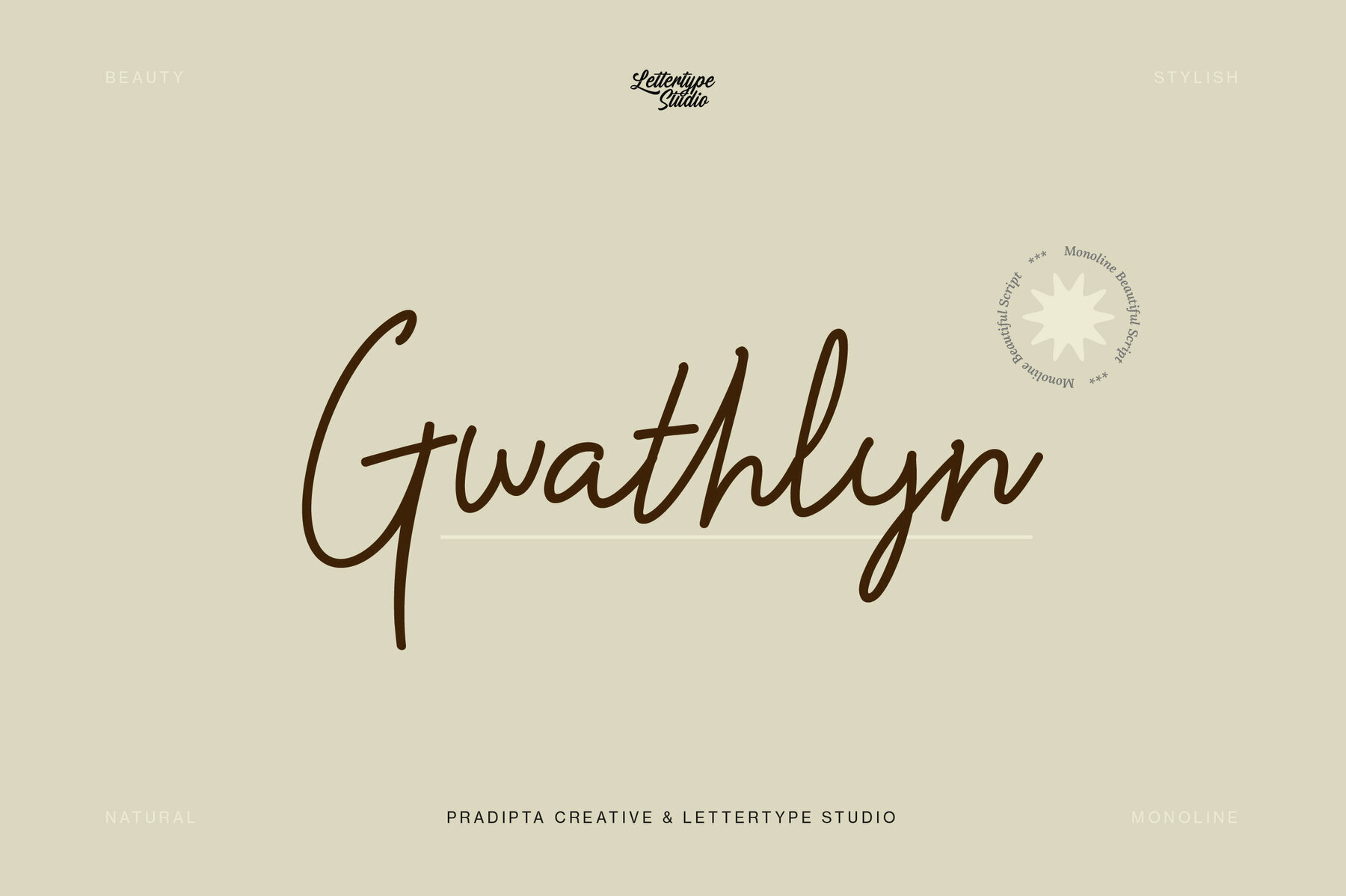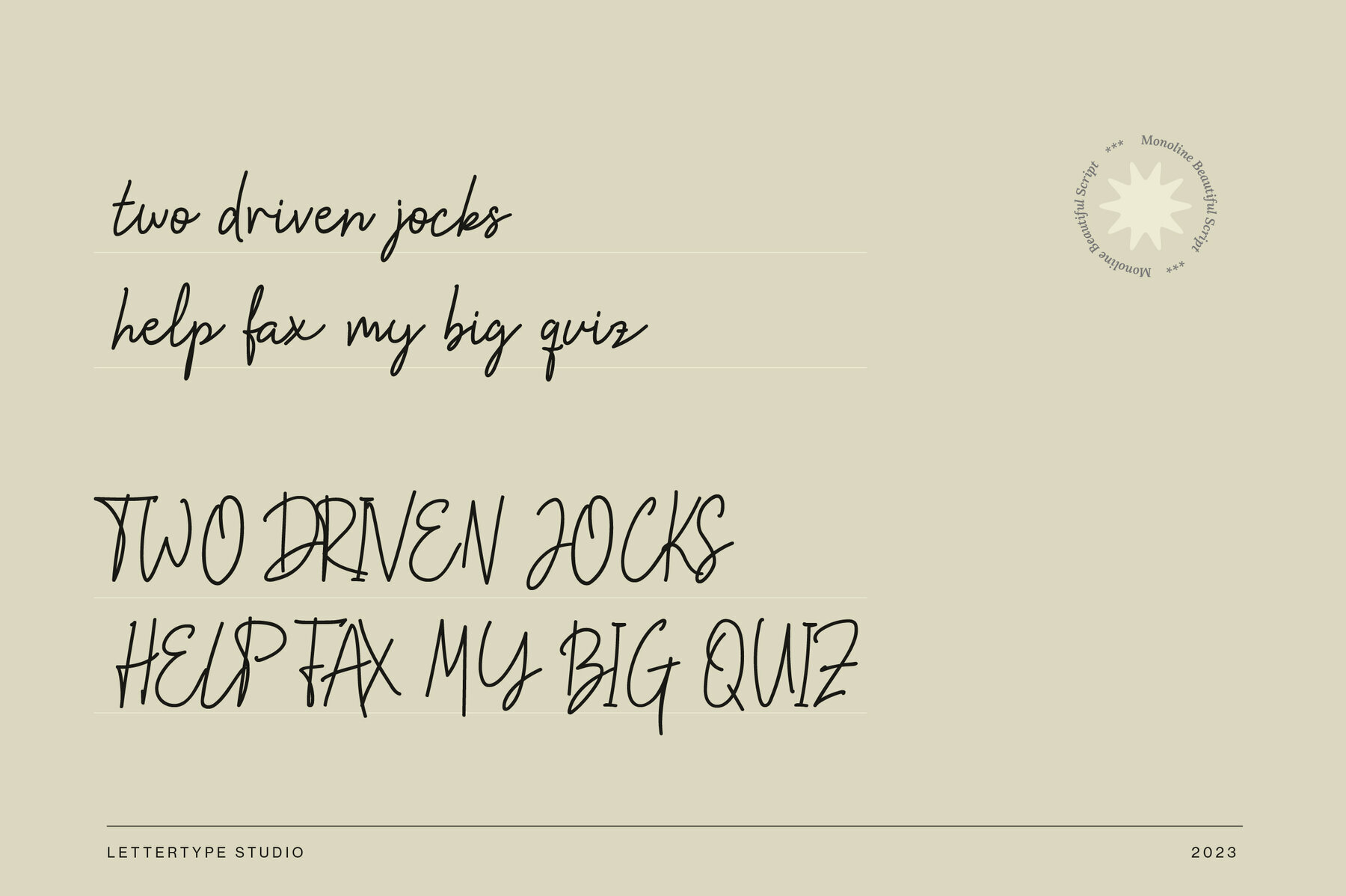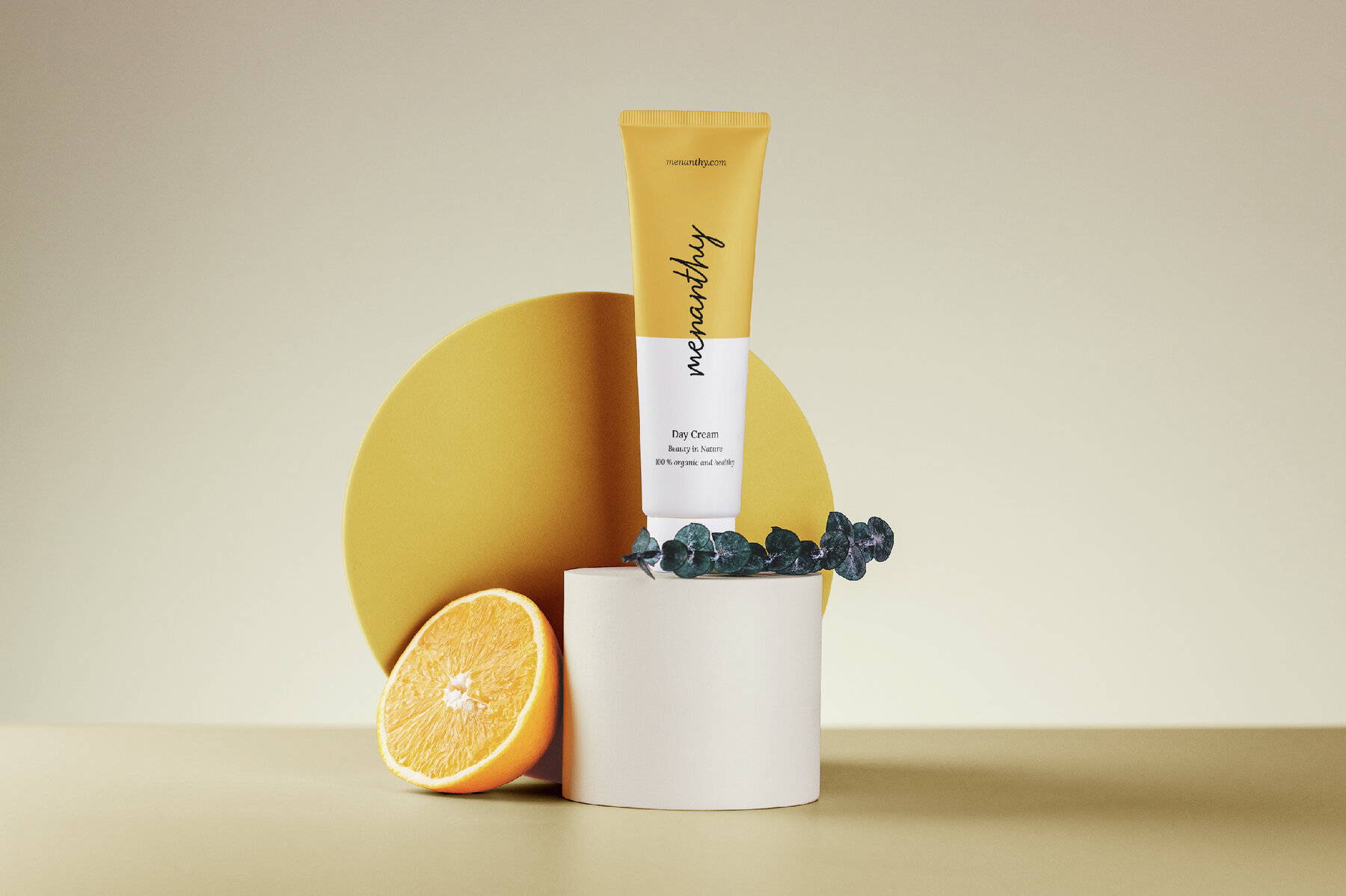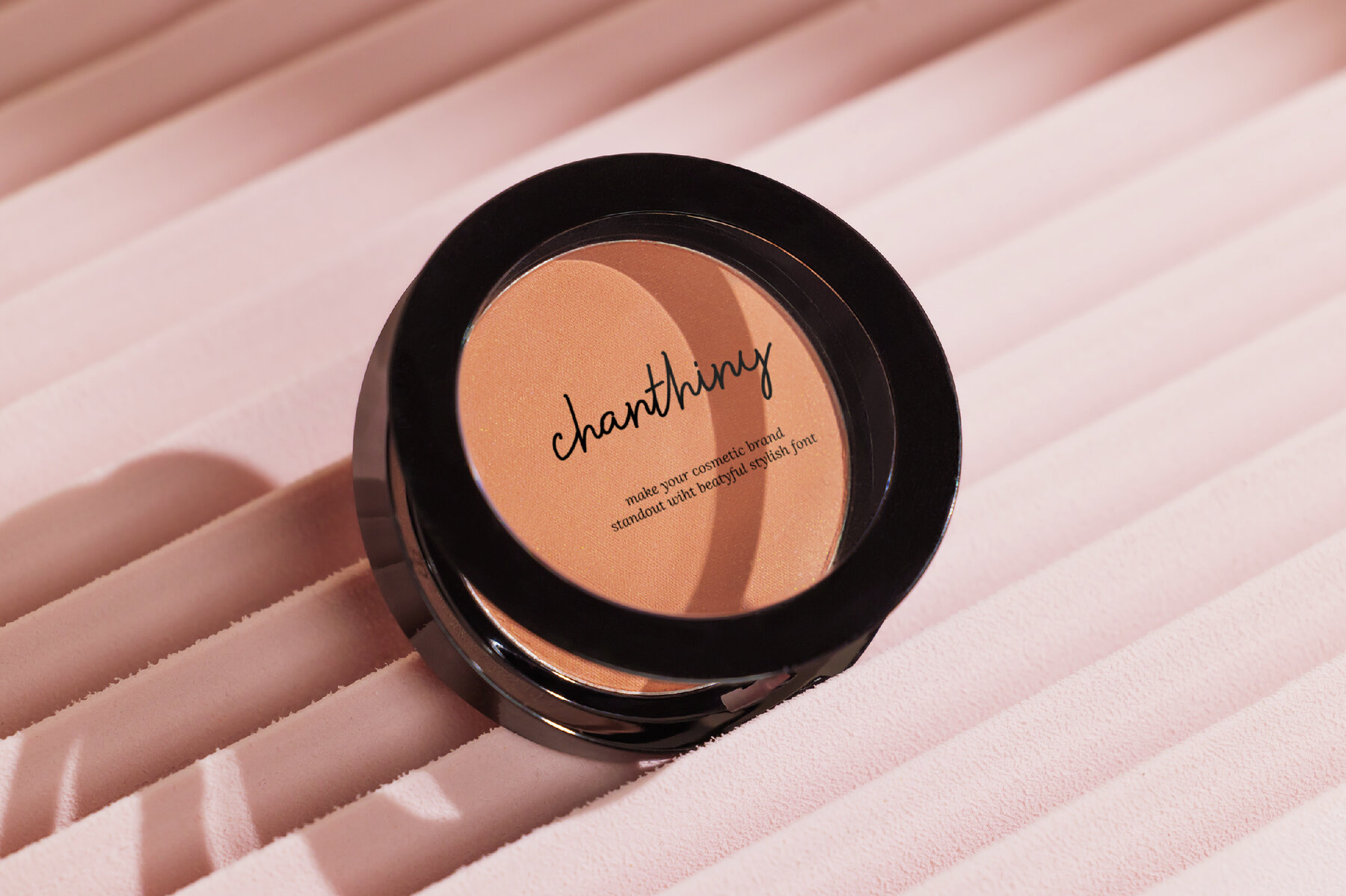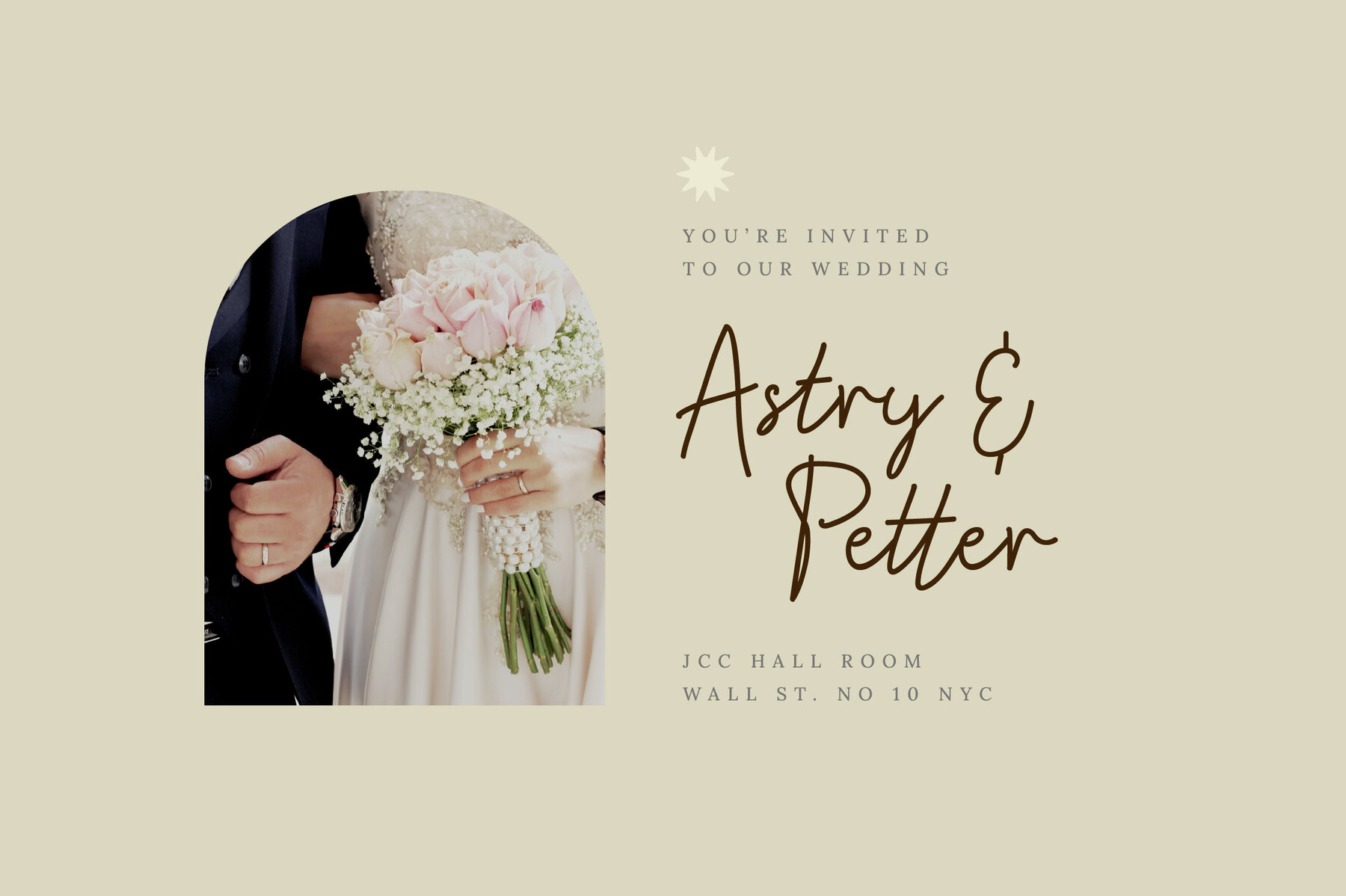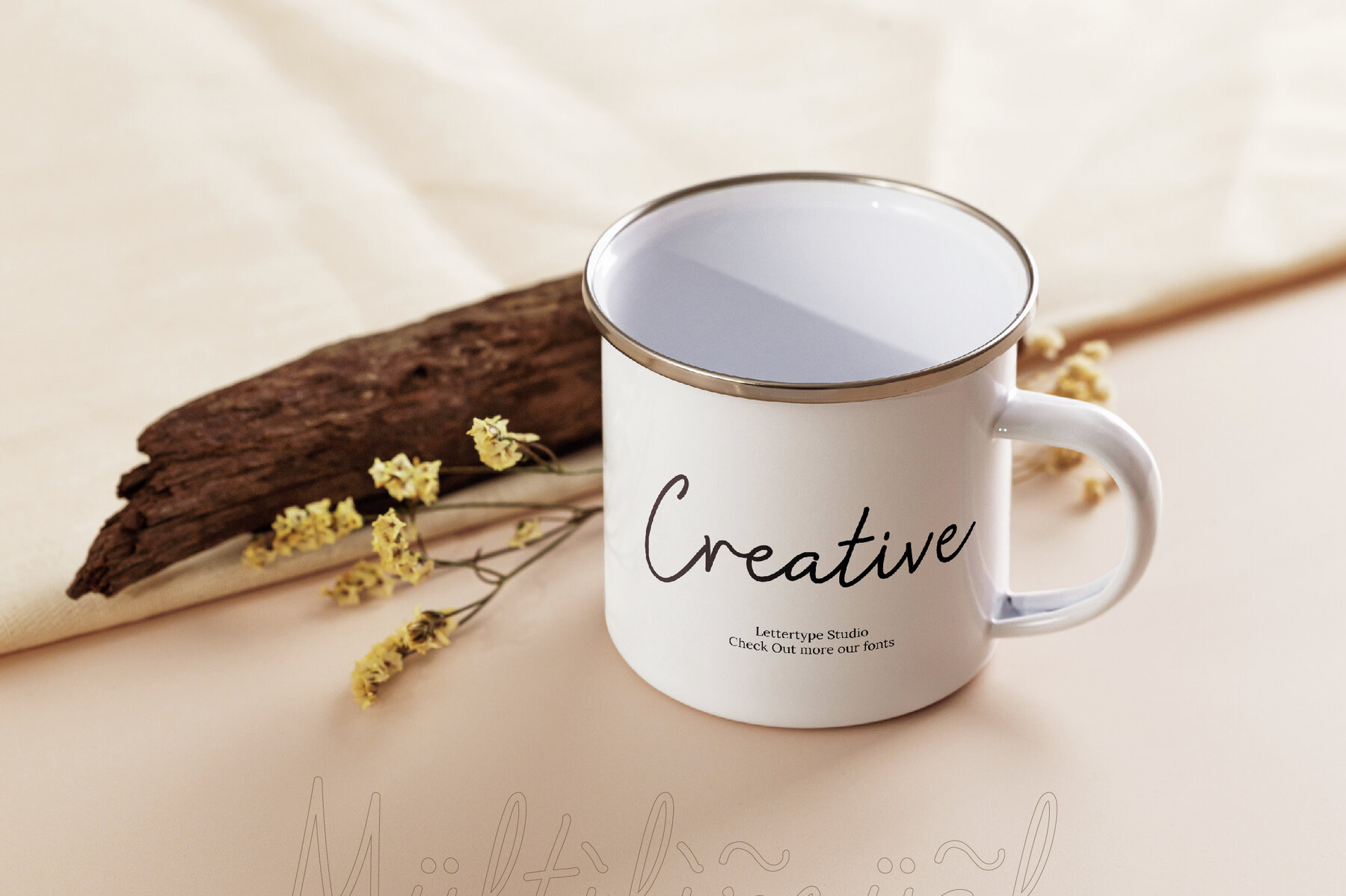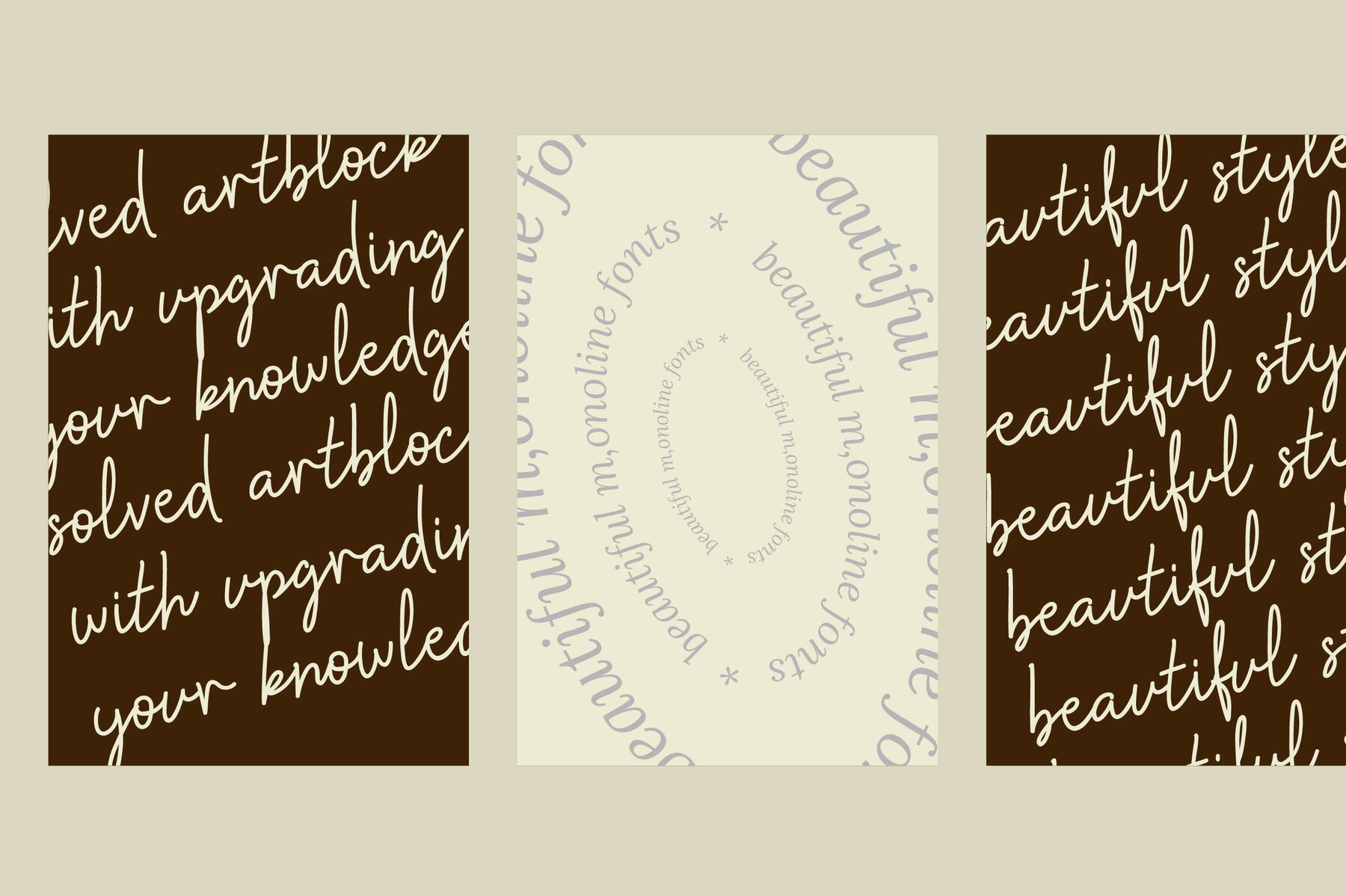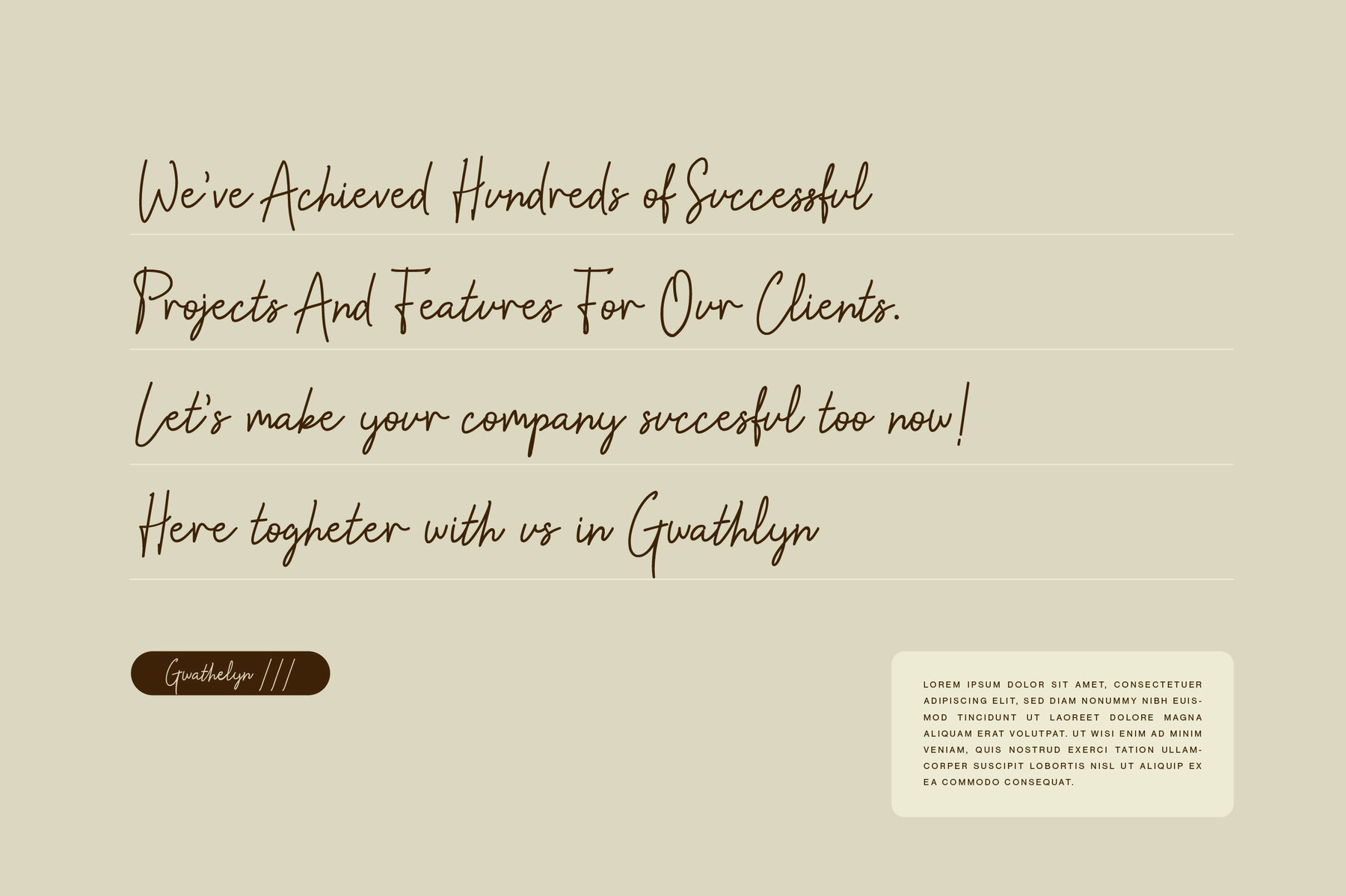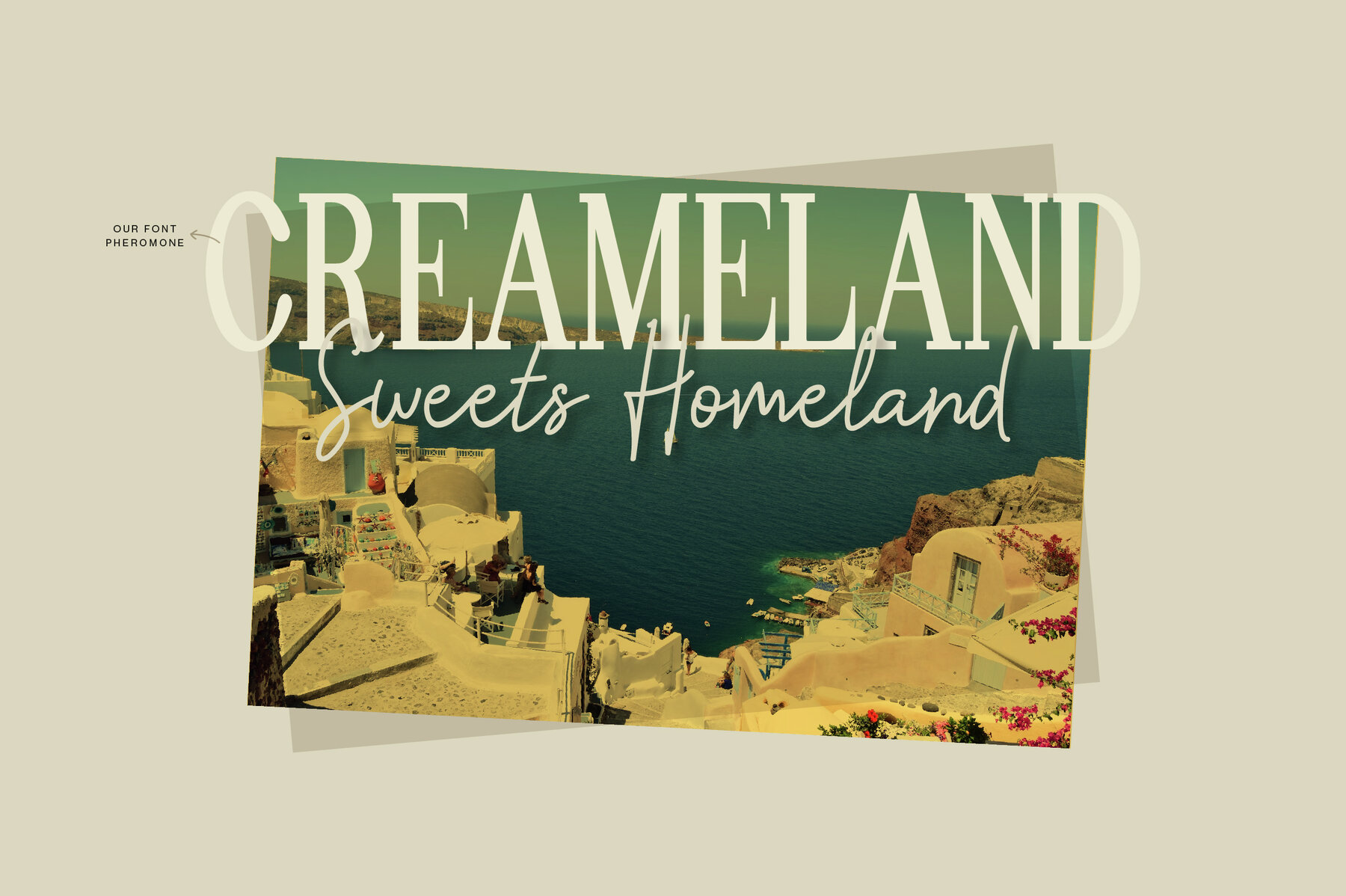
Gwathlyn Font
Gwathlyn Regular
Meet Gwathlyn, a luxurious handwriting script font from Lettertype Studio that combines modern sophistication with a personal touch. Crafted with care, Gwathlyn offers a smooth monoline aesthetic, featuring unique curves and an elegant ink flow. This script is ideal for fashioning a refined signature style, perfect for enhancing both digital and print projects.Discover Gwathlyn: Modern Elegance in Script
Versatile and Stylish